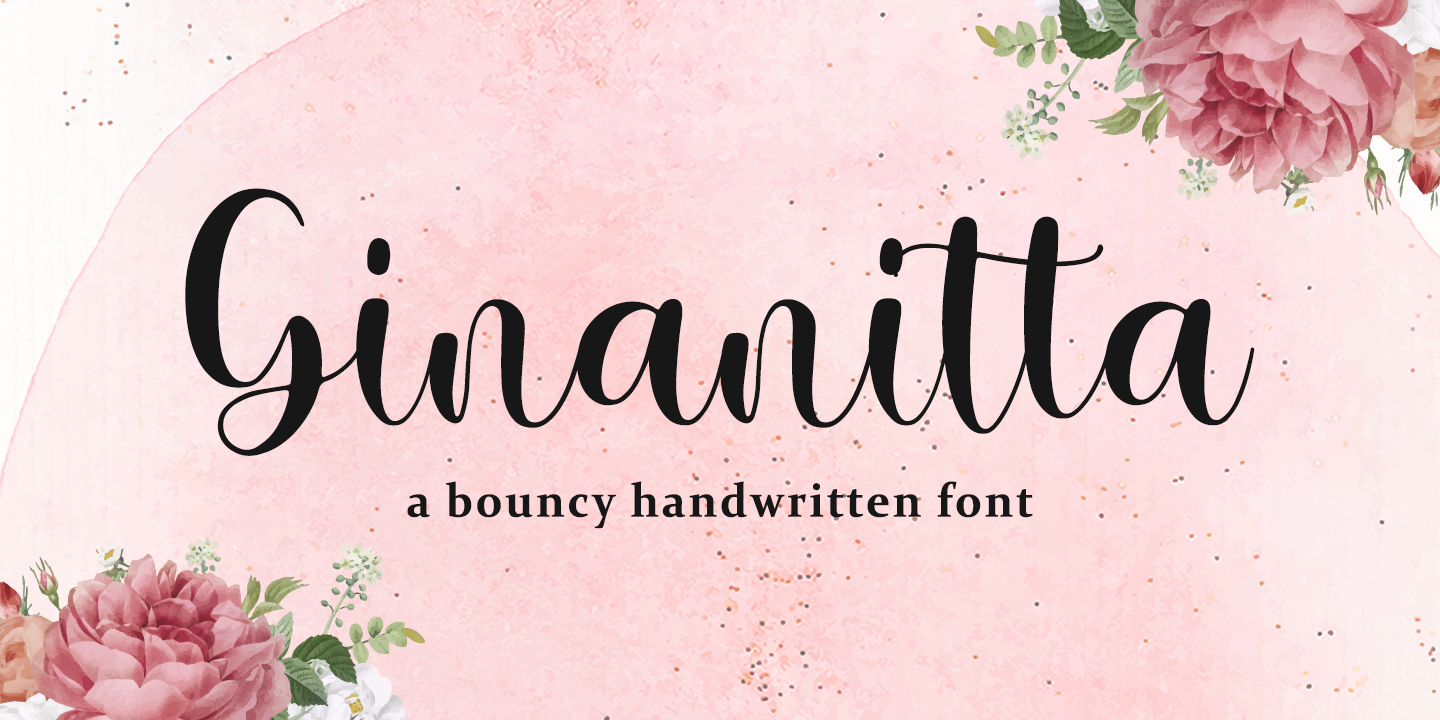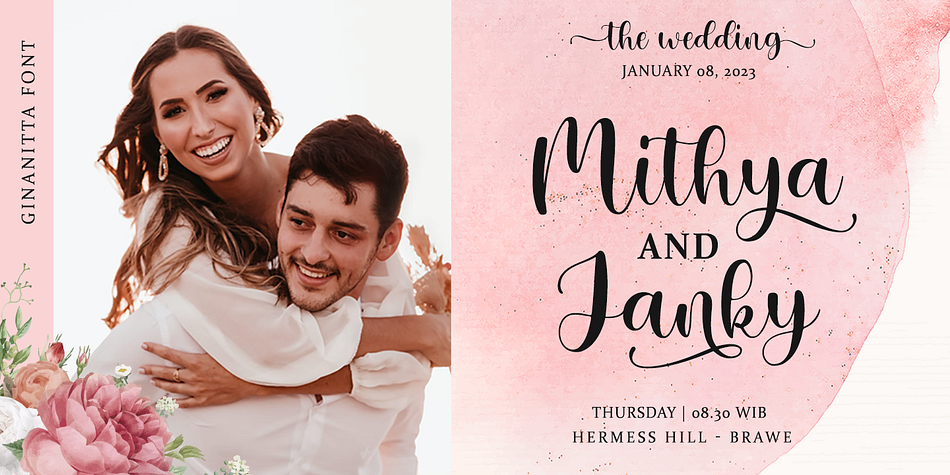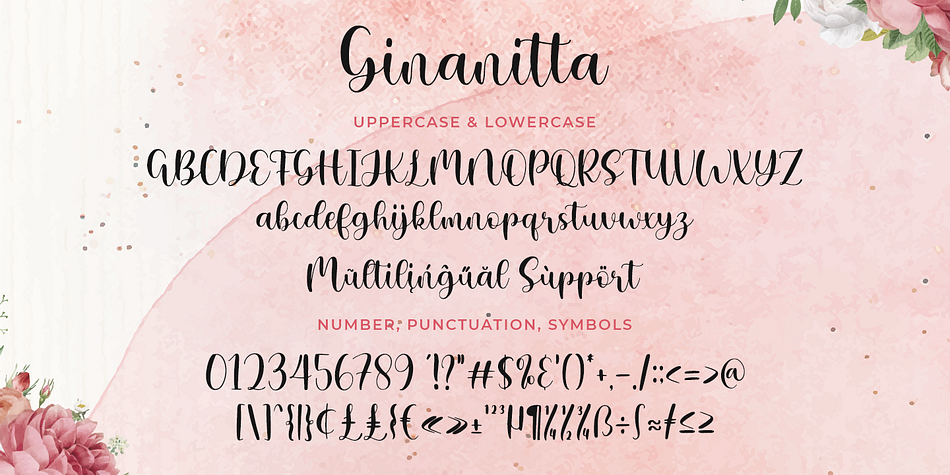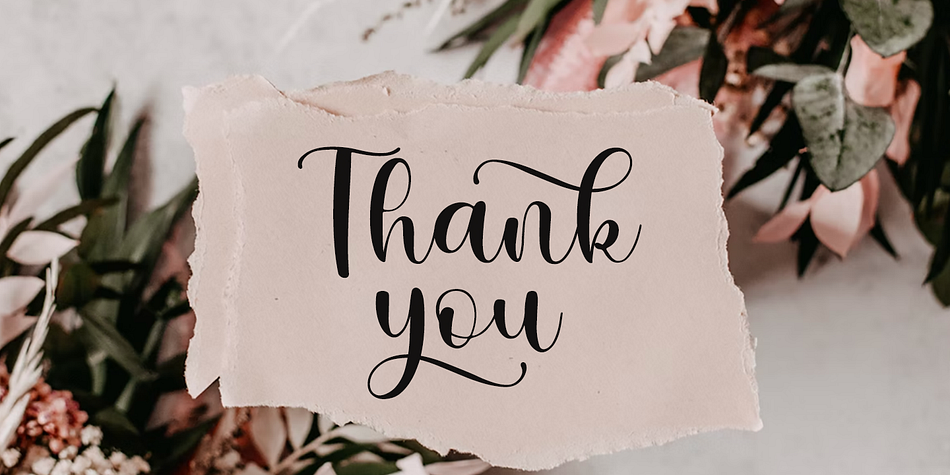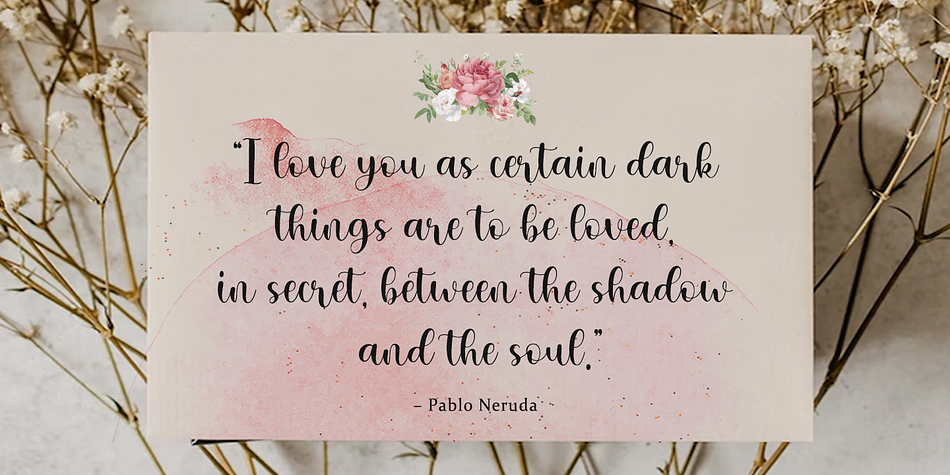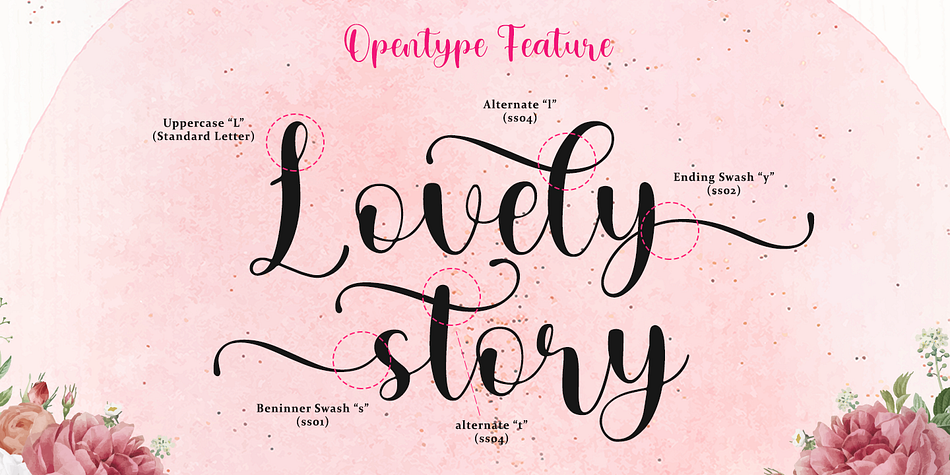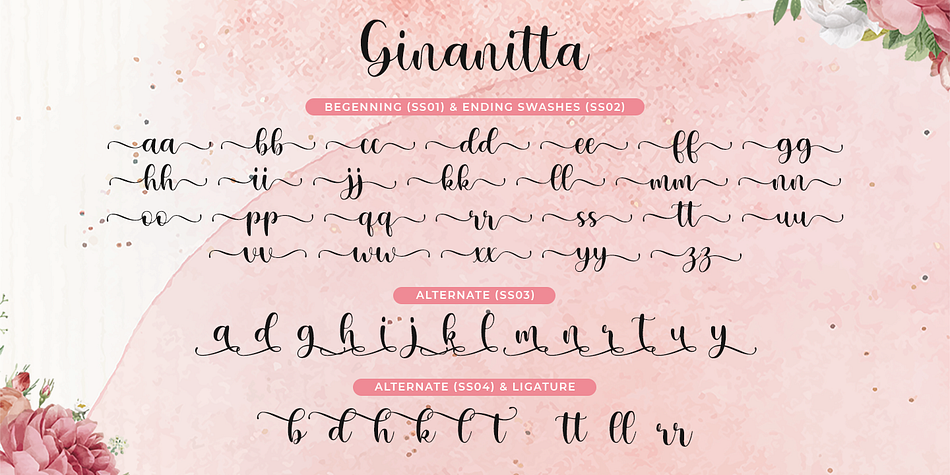
Ginanitta
Ginanitta is a modern calligraphy font family published by Gatype.
Meet Ginanitta handwriting, a modern wedding calligraphy font that gives a sophisticated handwriting look to elegant wedding stationery, logos and branding, websites, calligraphic quotes and more! Includes a variety of alternative glyphs for letters, to replicate the look of classic handwritten calligraphy.